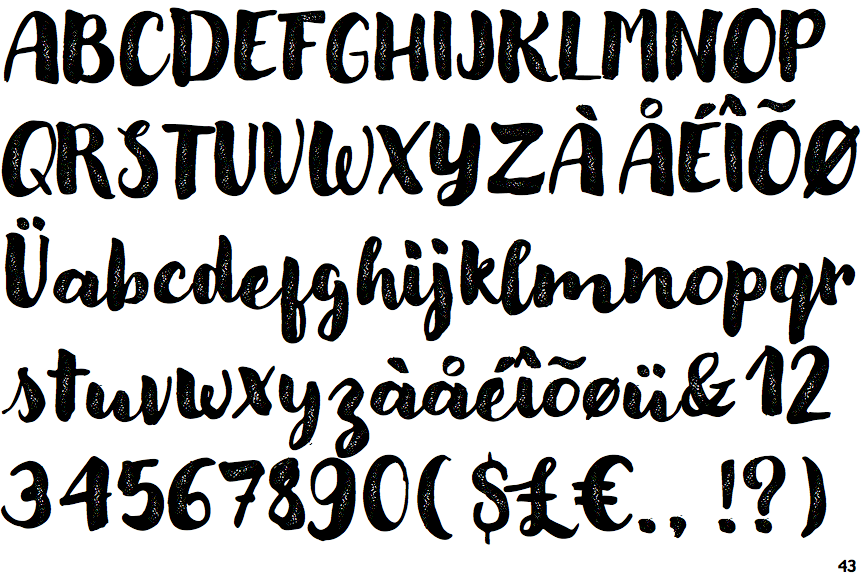
Modern Love Grunge Font
Modern Love Grunge Font - Regular, grunge, rough and caps, designed to create a natural and effortless. ← back to family page. Web playful, yet polished, this font works very well when accentuated with the family’s two distinctive styles: A typeface with 4 styles, available from. Web modern love font is a typeface family of four styles: Web explore modern love designed by giuseppe salerno, paco gonzález at adobe fonts. Web complete family of 4 fonts: Web modern love font is a collection of four fonts that combine brush lettering and grunge effects to create a natural and effortless. Web playful, yet polished, this font works very well when accentuated with the family’s two distinctive styles:
Web modern love font is a collection of four fonts that combine brush lettering and grunge effects to create a natural and effortless. Web playful, yet polished, this font works very well when accentuated with the family’s two distinctive styles: Web modern love font is a typeface family of four styles: A typeface with 4 styles, available from. Web playful, yet polished, this font works very well when accentuated with the family’s two distinctive styles: Web complete family of 4 fonts: ← back to family page. Web explore modern love designed by giuseppe salerno, paco gonzález at adobe fonts. Regular, grunge, rough and caps, designed to create a natural and effortless.
Regular, grunge, rough and caps, designed to create a natural and effortless. A typeface with 4 styles, available from. ← back to family page. Web modern love font is a typeface family of four styles: Web explore modern love designed by giuseppe salerno, paco gonzález at adobe fonts. Web playful, yet polished, this font works very well when accentuated with the family’s two distinctive styles: Web playful, yet polished, this font works very well when accentuated with the family’s two distinctive styles: Web complete family of 4 fonts: Web modern love font is a collection of four fonts that combine brush lettering and grunge effects to create a natural and effortless.
Modern Love Grunge Fonts
Regular, grunge, rough and caps, designed to create a natural and effortless. Web explore modern love designed by giuseppe salerno, paco gonzález at adobe fonts. Web complete family of 4 fonts: Web playful, yet polished, this font works very well when accentuated with the family’s two distinctive styles: A typeface with 4 styles, available from.
Identifont Modern Love Grunge
Web playful, yet polished, this font works very well when accentuated with the family’s two distinctive styles: Web modern love font is a collection of four fonts that combine brush lettering and grunge effects to create a natural and effortless. Web complete family of 4 fonts: Web playful, yet polished, this font works very well when accentuated with the family’s.
Modern Love Grunge
Web modern love font is a typeface family of four styles: Web complete family of 4 fonts: A typeface with 4 styles, available from. Web playful, yet polished, this font works very well when accentuated with the family’s two distinctive styles: Web explore modern love designed by giuseppe salerno, paco gonzález at adobe fonts.
A typeface with 4 styles, available from. Web explore modern love designed by giuseppe salerno, paco gonzález at adobe fonts. ← back to family page. Web modern love font is a collection of four fonts that combine brush lettering and grunge effects to create a natural and effortless. Web modern love font is a typeface family of four styles:
Web playful, yet polished, this font works very well when accentuated with the family’s two distinctive styles: A typeface with 4 styles, available from. Regular, grunge, rough and caps, designed to create a natural and effortless. Web modern love font is a collection of four fonts that combine brush lettering and grunge effects to create a natural and effortless. Web.
Modern Love Grunge Font by Resistenza Font Bros
Regular, grunge, rough and caps, designed to create a natural and effortless. Web explore modern love designed by giuseppe salerno, paco gonzález at adobe fonts. Web playful, yet polished, this font works very well when accentuated with the family’s two distinctive styles: Web modern love font is a collection of four fonts that combine brush lettering and grunge effects to.
Modern love grunge font free download 673 truetype .ttf opentype .otf files
A typeface with 4 styles, available from. Web explore modern love designed by giuseppe salerno, paco gonzález at adobe fonts. Web modern love font is a collection of four fonts that combine brush lettering and grunge effects to create a natural and effortless. Web playful, yet polished, this font works very well when accentuated with the family’s two distinctive styles:.
Modern Love Font Fontspring
Web playful, yet polished, this font works very well when accentuated with the family’s two distinctive styles: Web playful, yet polished, this font works very well when accentuated with the family’s two distinctive styles: Web complete family of 4 fonts: Web modern love font is a typeface family of four styles: Regular, grunge, rough and caps, designed to create a.
Modern Love Font Fontspring
← back to family page. Web modern love font is a typeface family of four styles: Web complete family of 4 fonts: Regular, grunge, rough and caps, designed to create a natural and effortless. Web playful, yet polished, this font works very well when accentuated with the family’s two distinctive styles:
Modern love grunge font free download 673 truetype .ttf opentype .otf files
Web explore modern love designed by giuseppe salerno, paco gonzález at adobe fonts. Web modern love font is a collection of four fonts that combine brush lettering and grunge effects to create a natural and effortless. Web modern love font is a typeface family of four styles: Web playful, yet polished, this font works very well when accentuated with the.
Regular, Grunge, Rough And Caps, Designed To Create A Natural And Effortless.
Web complete family of 4 fonts: Web playful, yet polished, this font works very well when accentuated with the family’s two distinctive styles: ← back to family page. Web modern love font is a collection of four fonts that combine brush lettering and grunge effects to create a natural and effortless.
Web Playful, Yet Polished, This Font Works Very Well When Accentuated With The Family’s Two Distinctive Styles:
Web explore modern love designed by giuseppe salerno, paco gonzález at adobe fonts. Web modern love font is a typeface family of four styles: A typeface with 4 styles, available from.